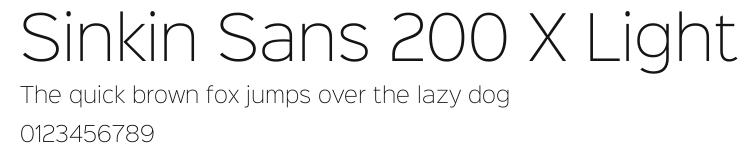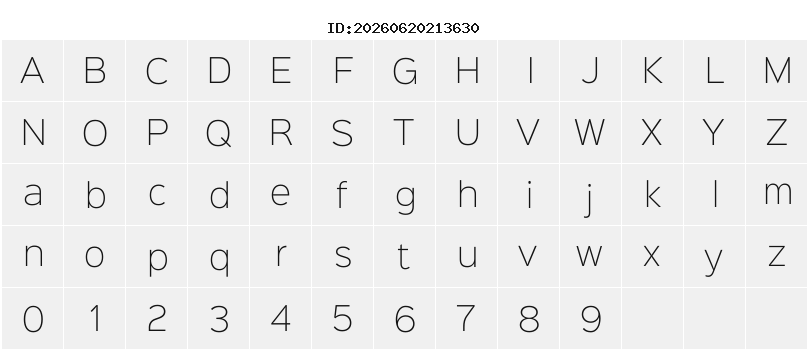
• Copyright: Sinkin Sans 200 X Light by Keith Bates • © 2014 www.k-type.com • Sinkin Sans is a simple, pleasantly proportioned sans serif with tiny, inconspicuous notches that sink into vertical strokes adding highlights to congested corners.
• Designer: Keith Bates
• Manufacturer: K-Type
• Description: The incisions make right angles appear sharper and improve definition in more intricate glyphs. Although the nicks are barely noticeable they add emphasis to outlines and give a lift to shady nooks.
Sinkin Sans 200 X Light.ttf is a modern, elegant sans-serif font designed for ultimate readability and visual harmony. Perfect for branding, headlines, web design, and print materials.